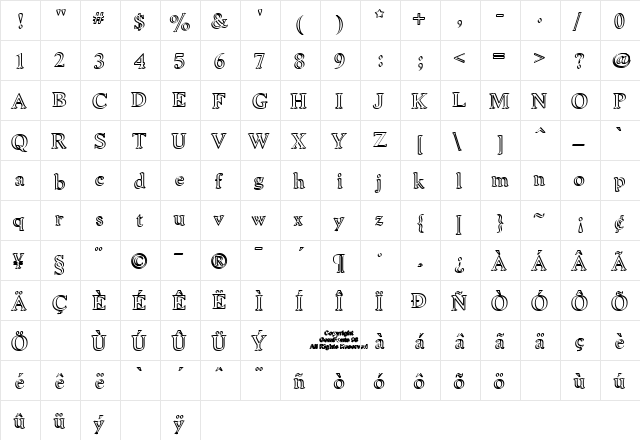
Niew CroMagnon Callig Regular
Design Context for Niew CroMagnon Callig Typeface
Niew CroMagnon Callig offers clean, dependable letterforms without strong stylistic allegiance, making it a practical choice for designers who need flexibility.